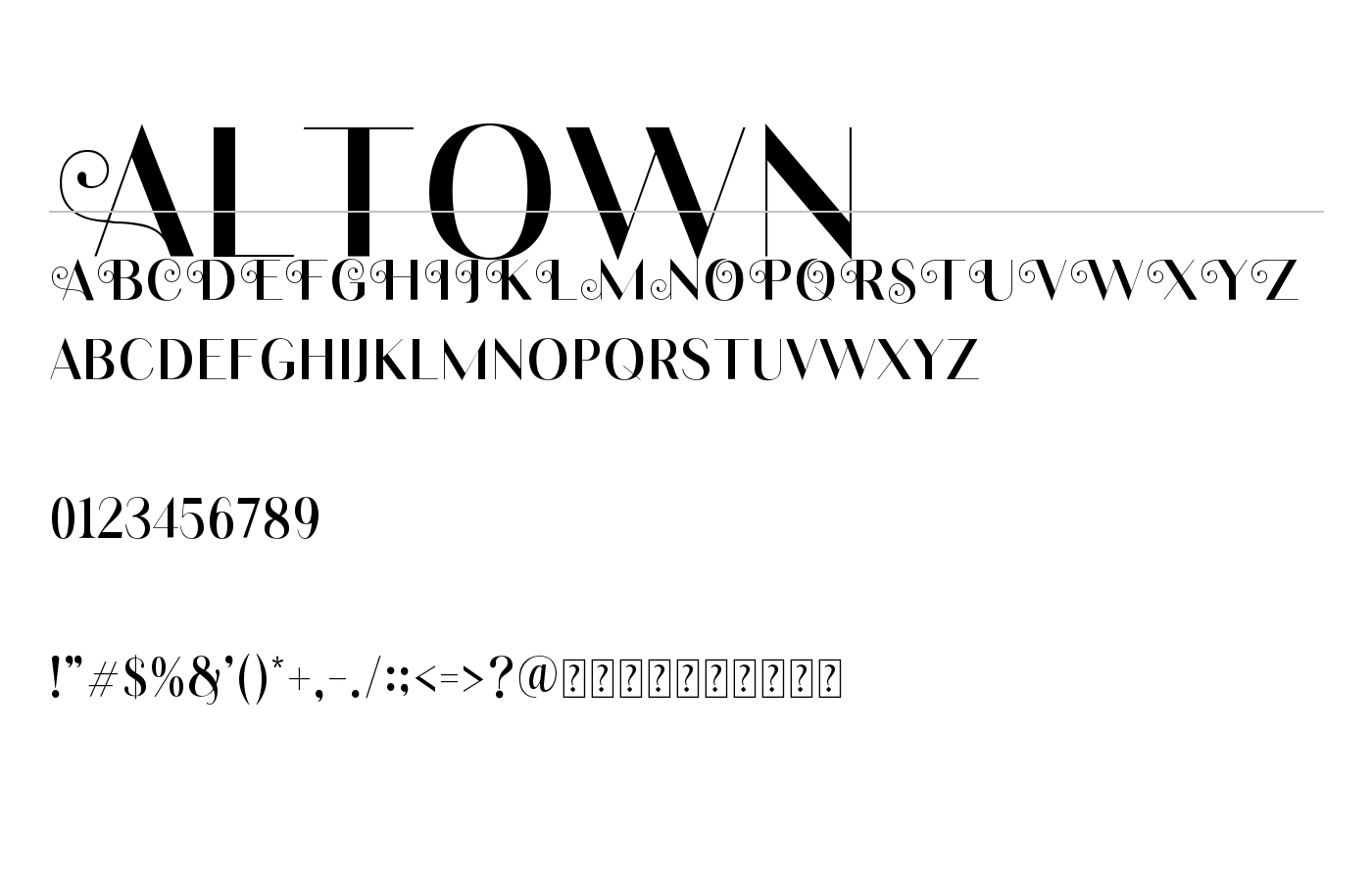
Altown is a stylish serif font combining sharp, high-contrast strokes with elegant decorative swirls that add a sophisticated, artistic flair. Its tall, narrow letterforms and refined details make it perfect for luxury branding, editorial headlines, and fashion-focused designs where a modern yet graceful appearance is desired. This font excels in making bold, memorable statements with a touch of classic elegance.
Altown Font
About Altown Font